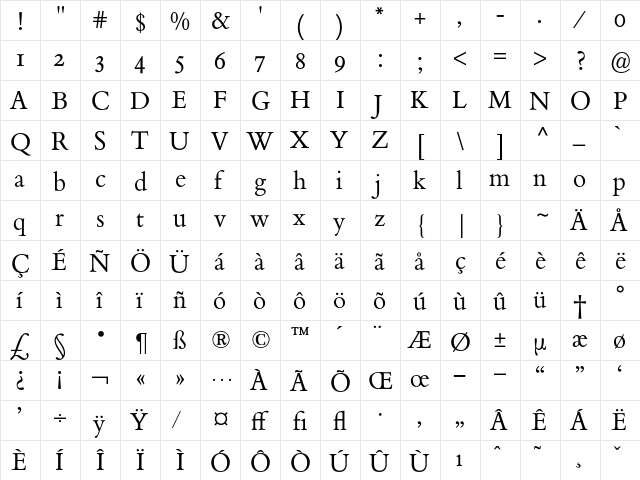
BemboExpertBQ-RomanOsF Regular
Design Context for BemboExpertBQ-RomanOsF Typeface
BemboExpertBQ-RomanOsF takes a measured approach to typography — its balanced proportions and neutral character make it a reliable workhorse for both digital and print work.